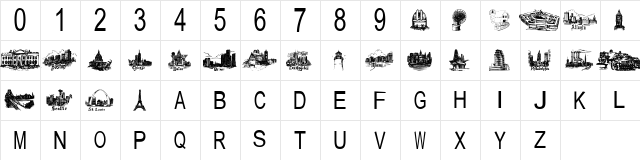
tungfont building Regular Font Preview
tungfont building Regular
tungfont building Regular Font Details
Design Context for tungfont building Typeface
tungfont building offers clean, dependable letterforms without strong stylistic allegiance, making it a practical choice for designers who need flexibility.